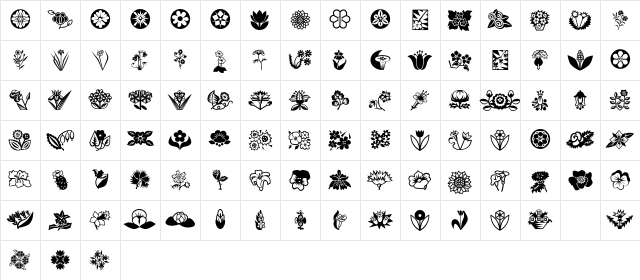
MiniPicsLilFlowers Regular
MiniPicsLilFlowers Regular Font Preview
MiniPicsLilFlowers Regular Uppercase Preview
MiniPicsLilFlowers Regular Lowercase Preview
MiniPicsLilFlowers Regular Numeric Preview
MiniPicsLilFlowers Regular Character Map
Complete MiniPicsLilFlowers Regular glyph index. Displaying only characters natively supported by MiniPicsLilFlowers Regular font.
MiniPicsLilFlowers Regular Character Map
Design Context for MiniPicsLilFlowers
MiniPicsLilFlowers is a composed and adaptable typeface that performs quietly and consistently across a wide range of design contexts.